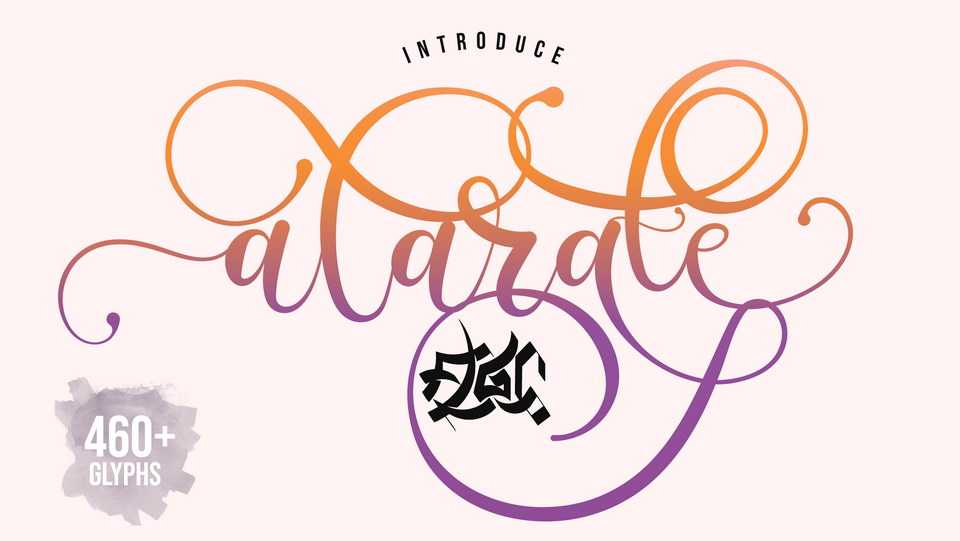
Download Alarate Script ,a lovely modern calligraphy font with fancy swashes a lot of decorative alternates. Alarate font is suitable for logos, wedding decoration, branding, merchandise and more.